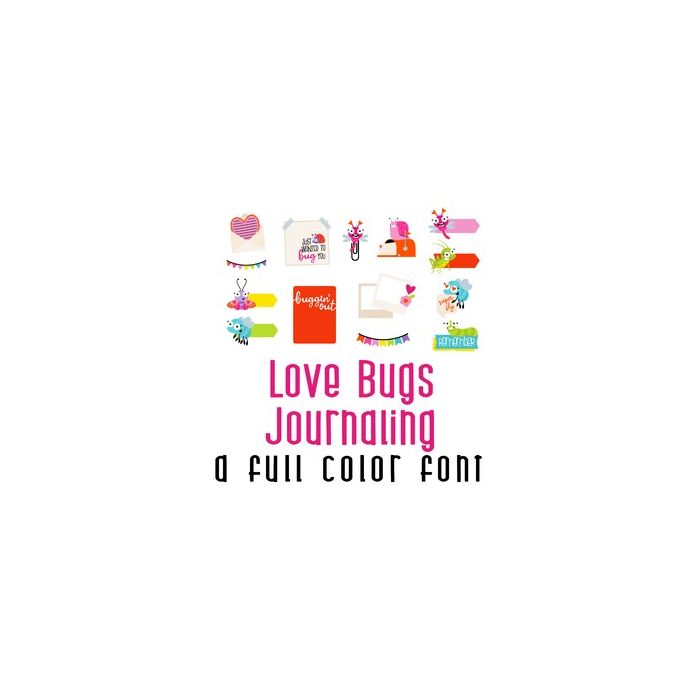
This adorable full-color doodlebat font features 26 little love bugs jounaling imagery! Use this collection of images for cards, crafts, gifts, decor, parties, classrooms, planner stickers, scrapbook pages and more!